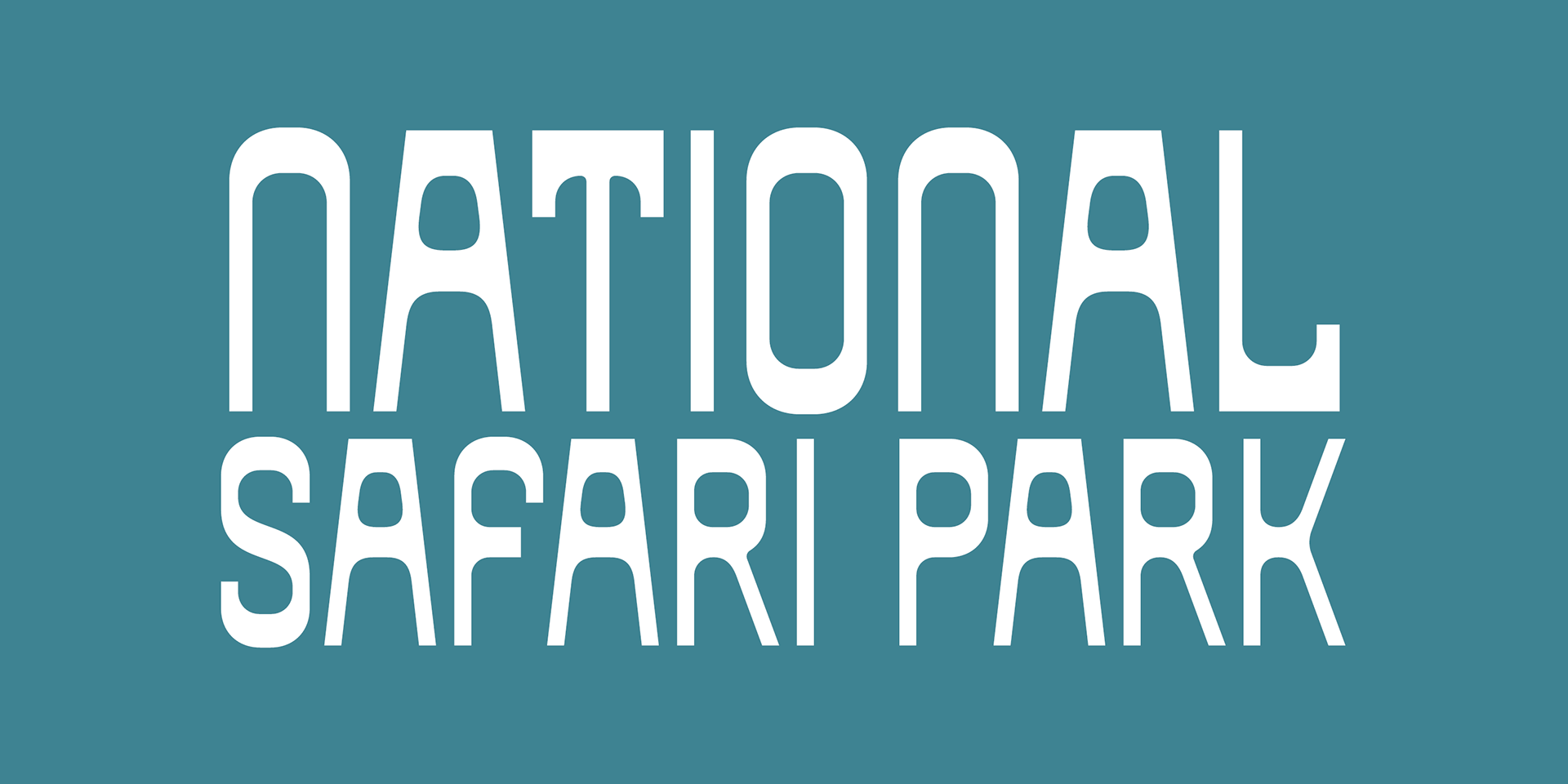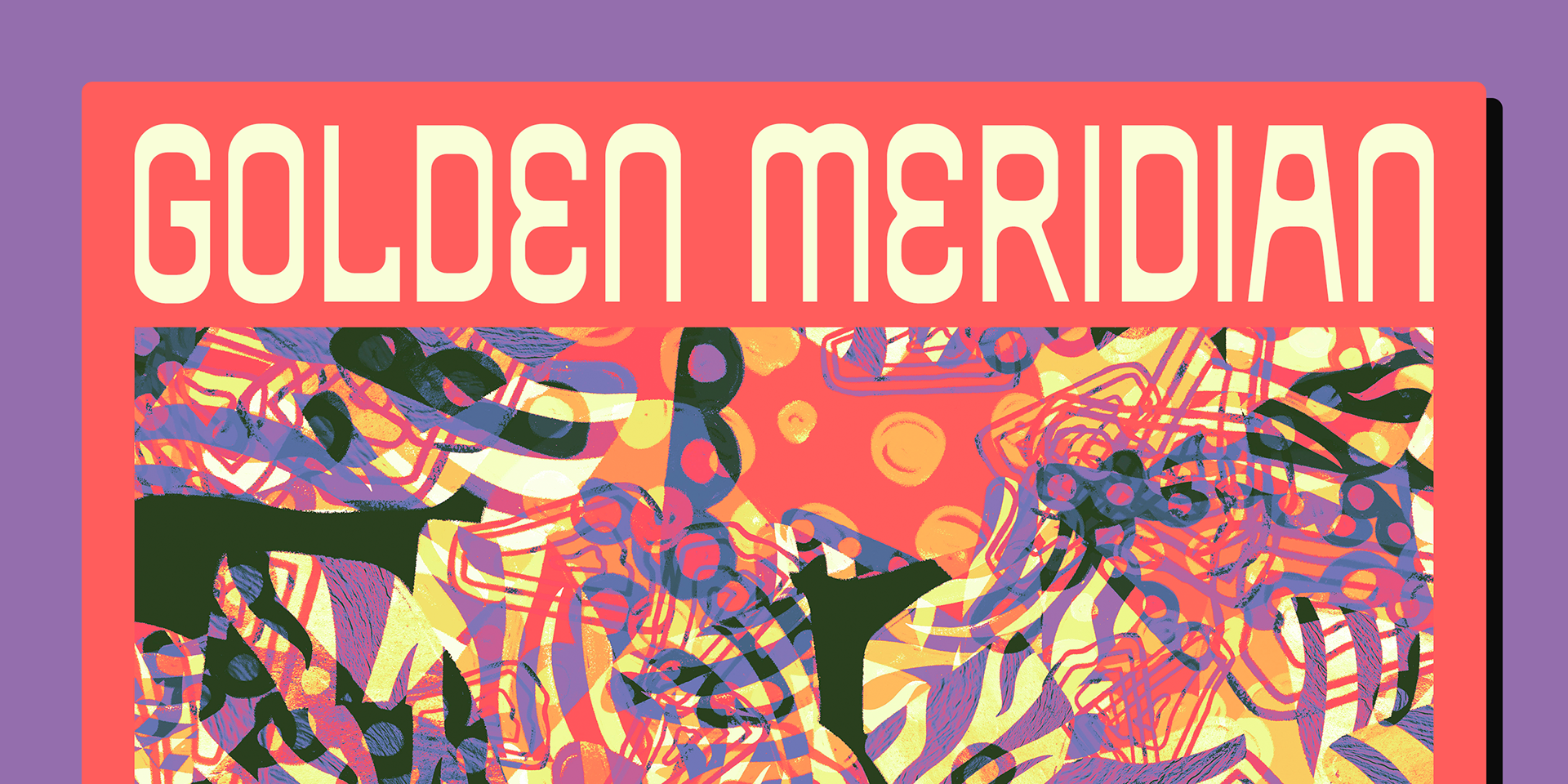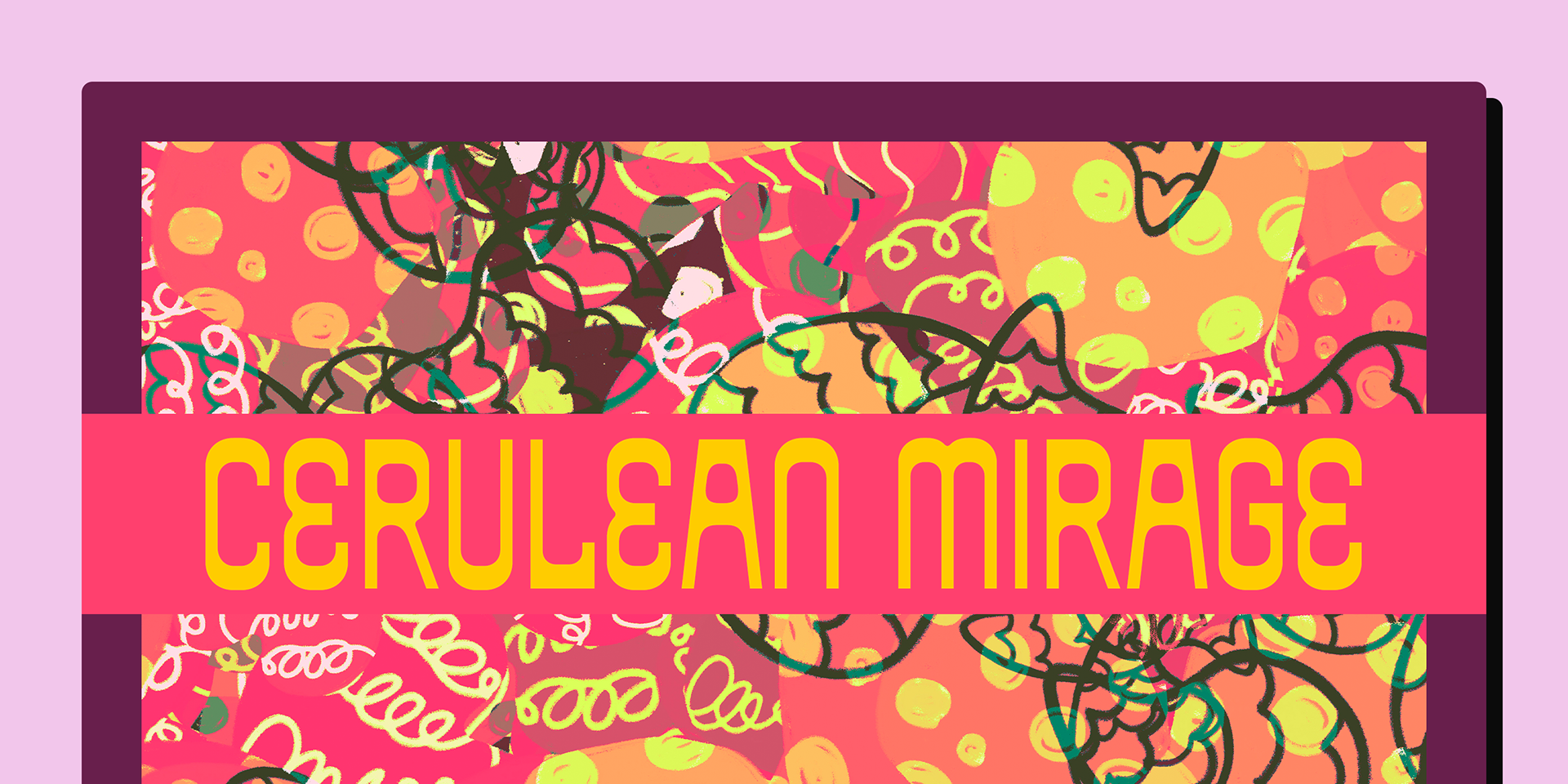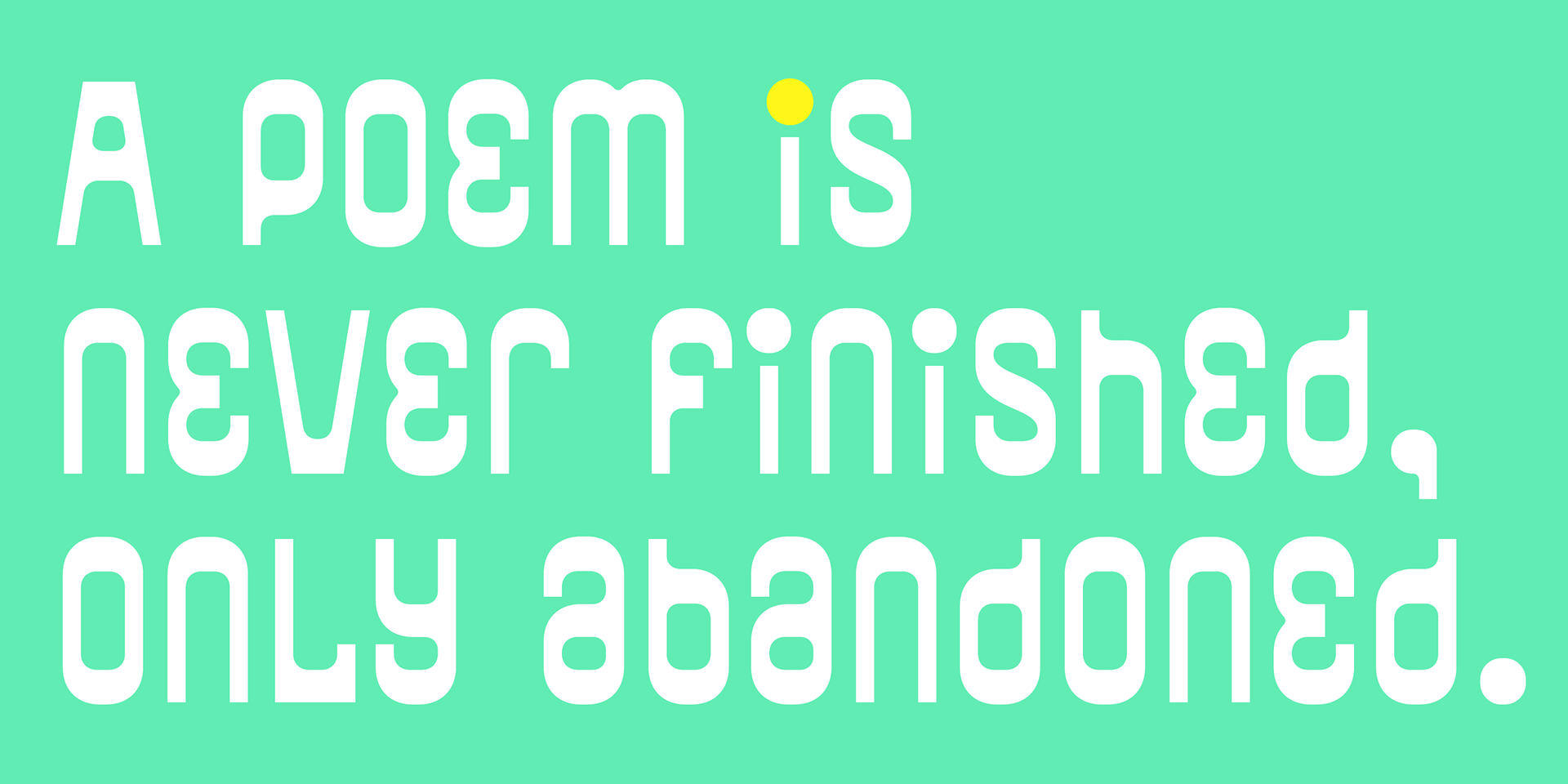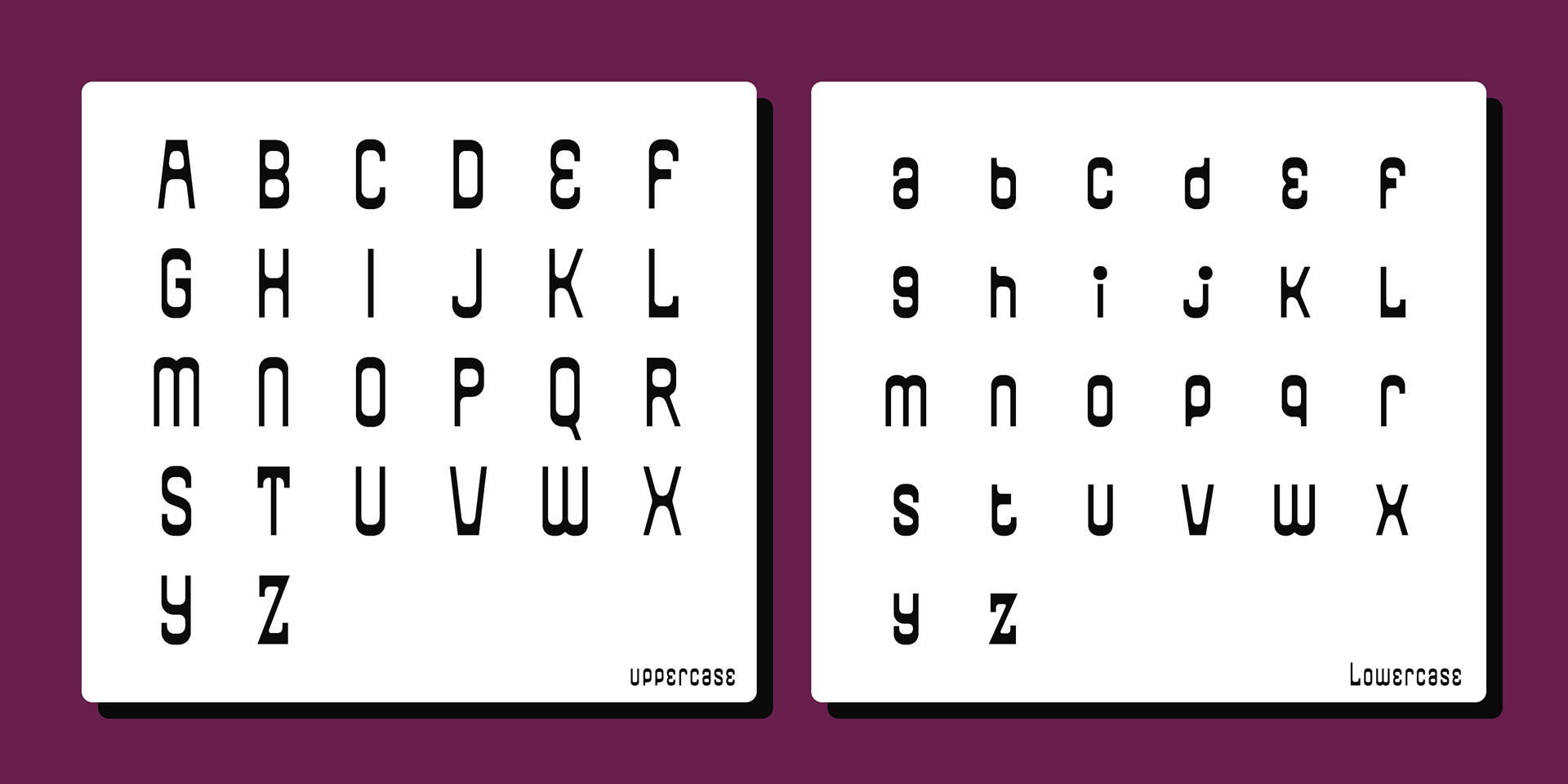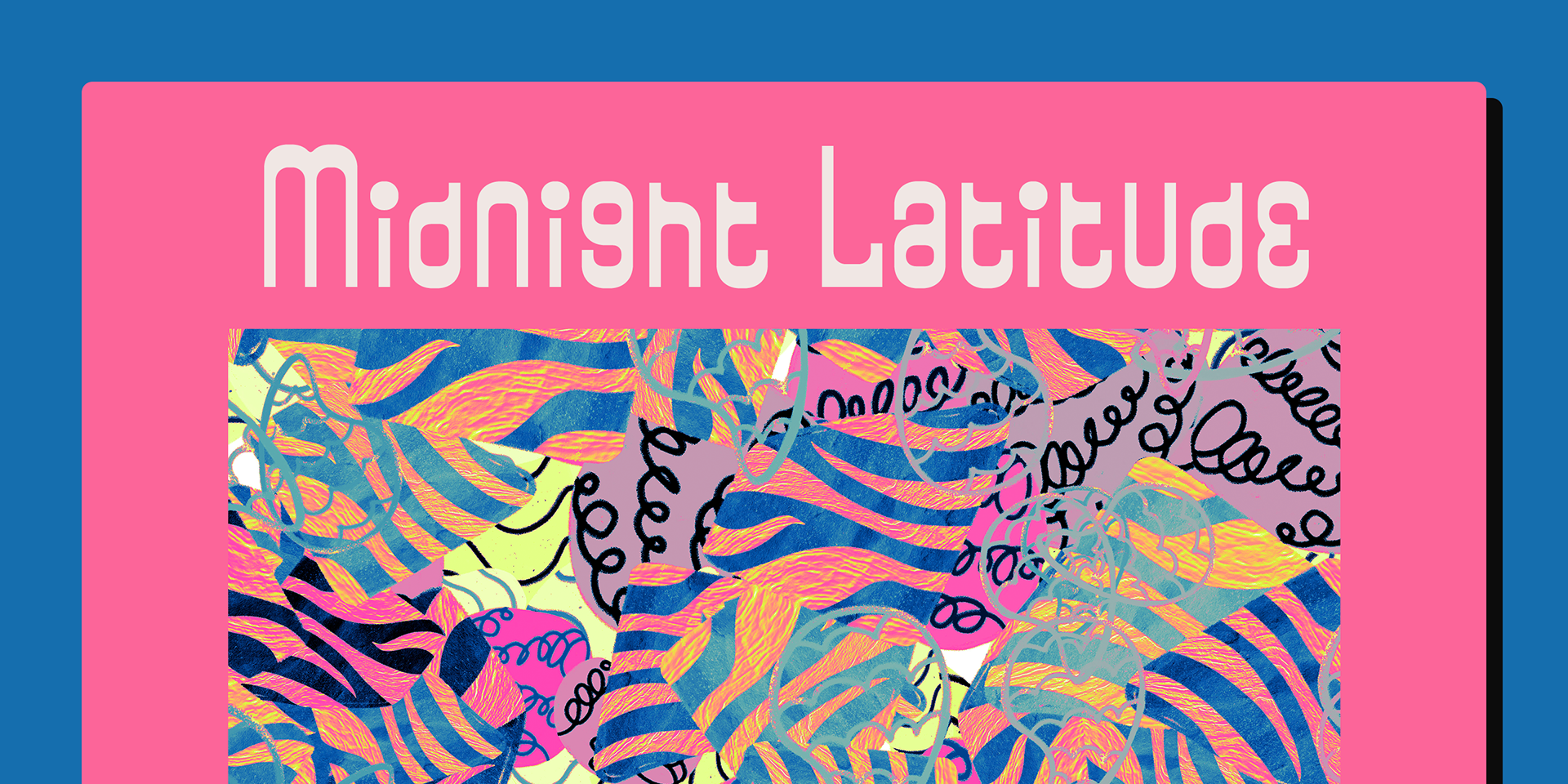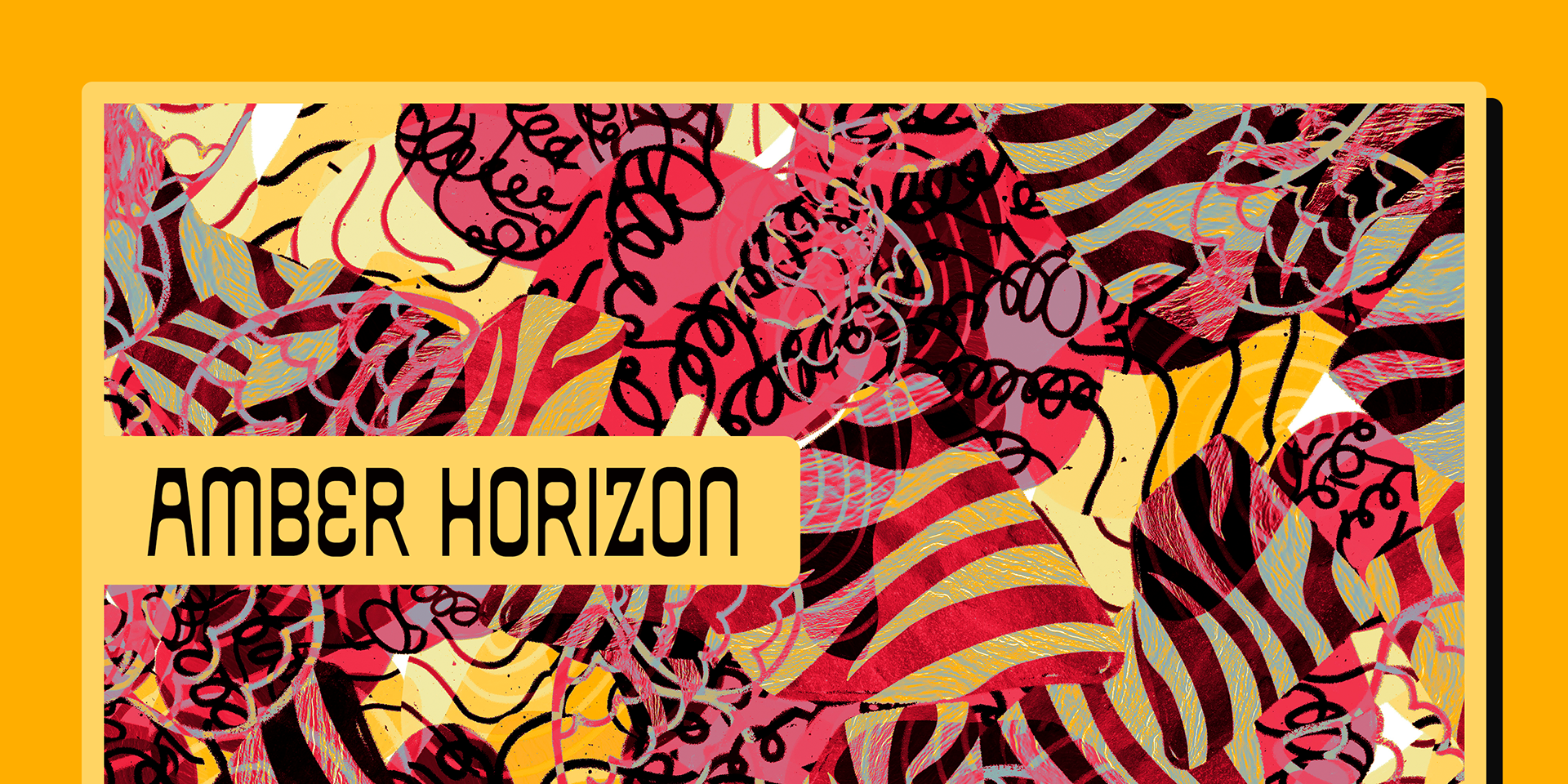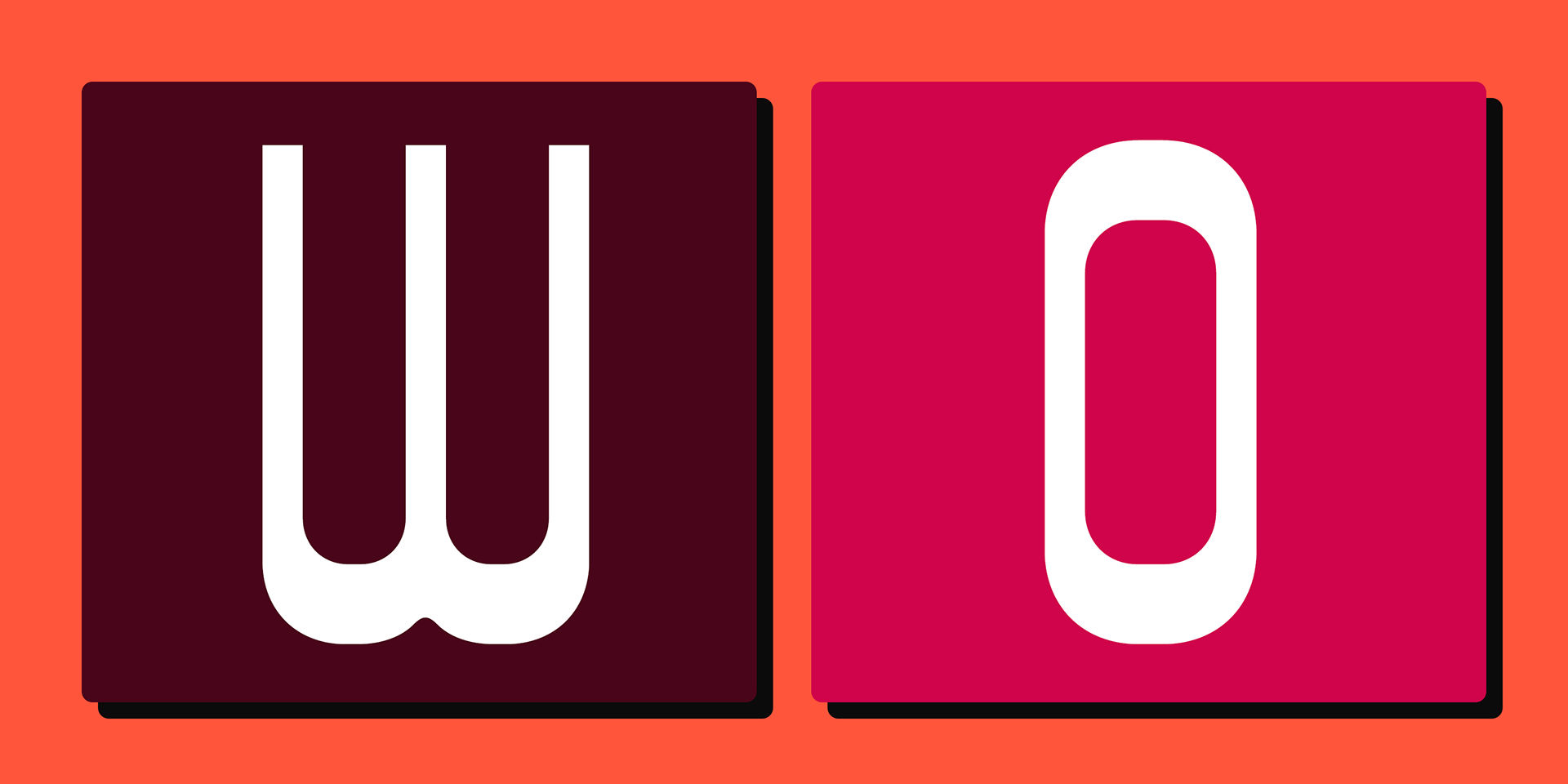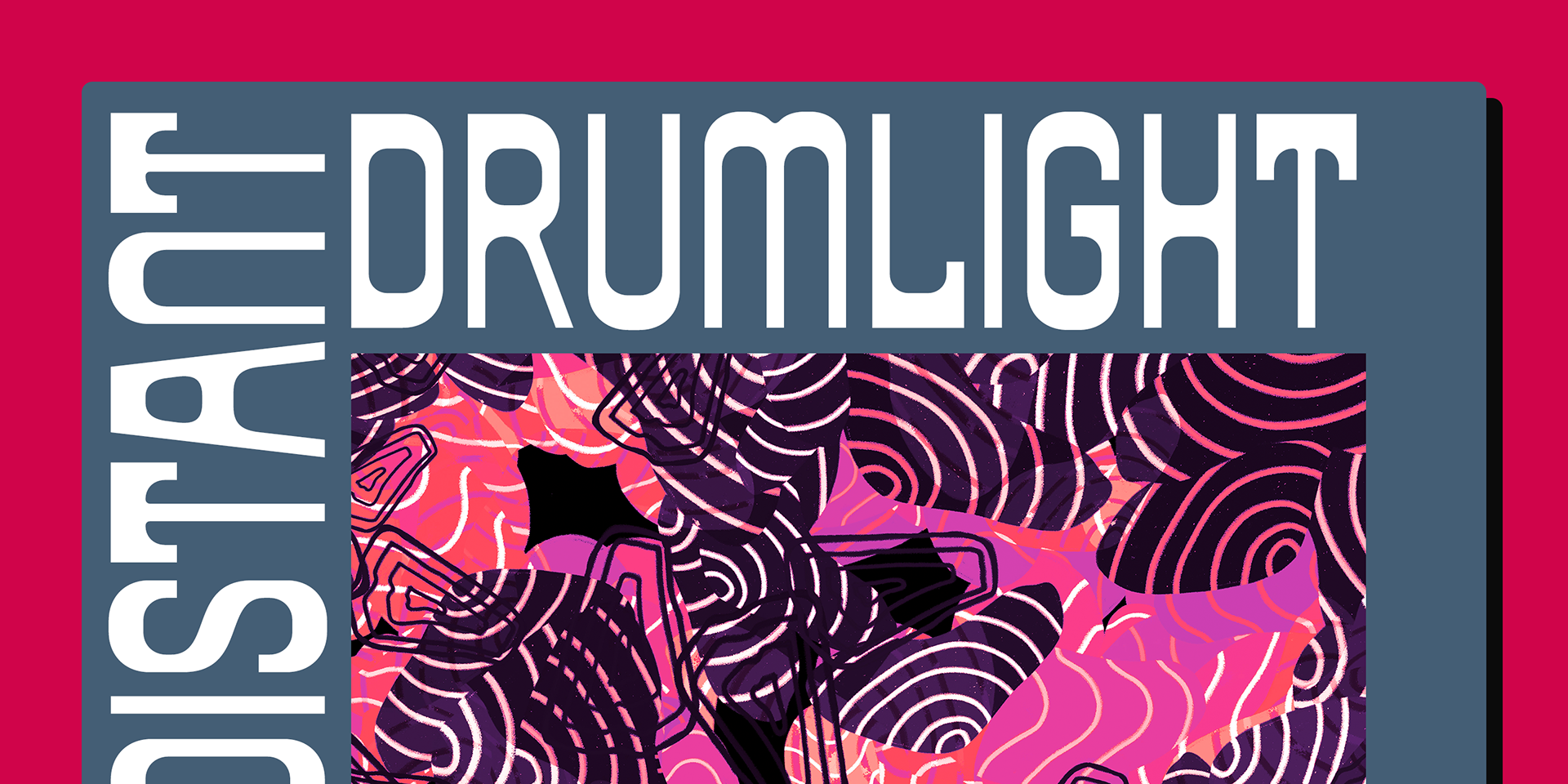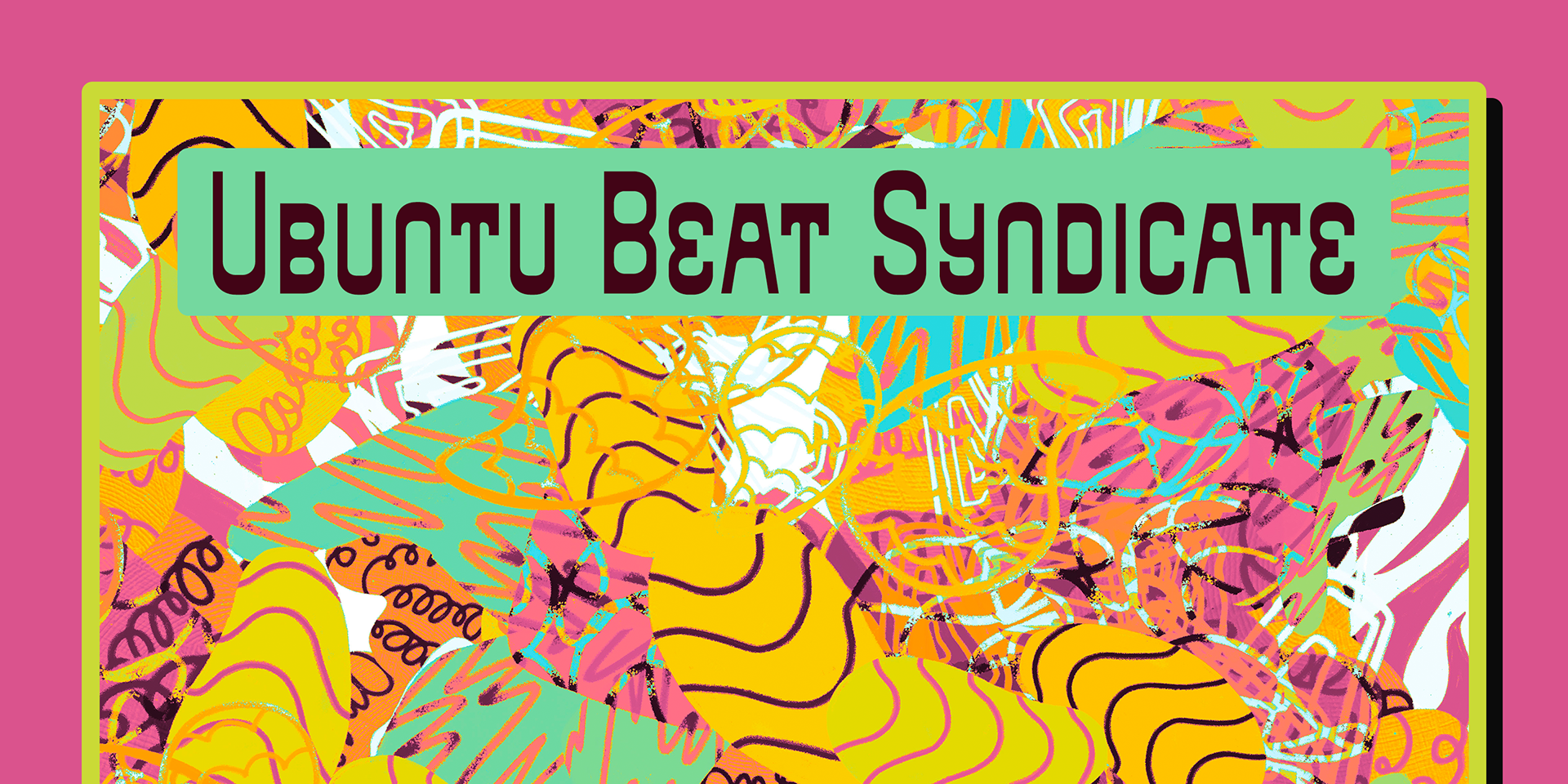
African Elephant Truck
Inspired by retro vinyl records from the early to mid-20th century, this font captures a nostalgic yet timeless aesthetic.
It also includes small caps, offering enhanced flexibility for advanced typography.